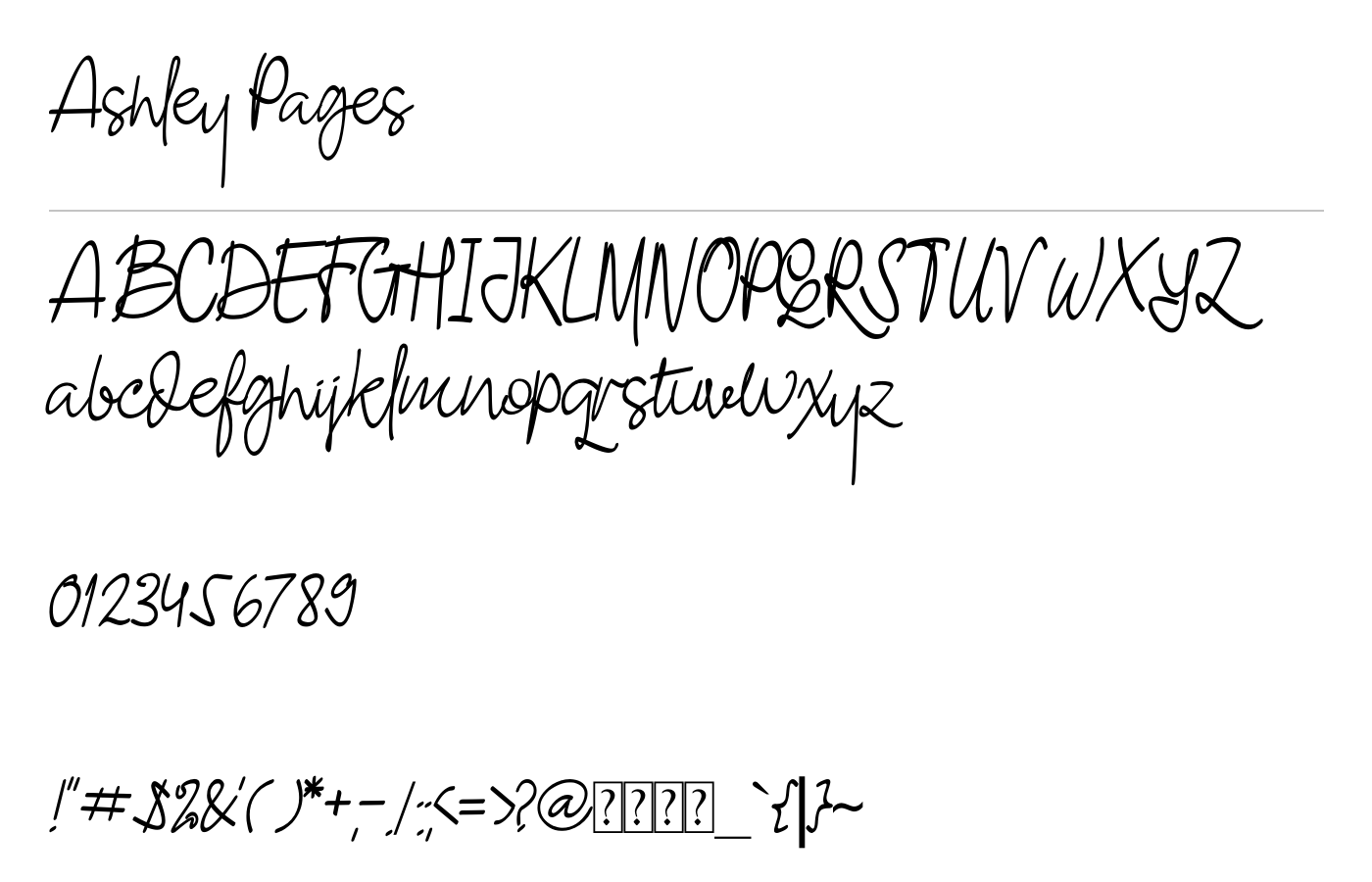
Ashley Pages is a playful and casual handwritten script font with a tall, narrow structure and thin strokes that give it an airy, personal feel. Its lively letterforms and informal style make it ideal for creative projects like invitations, lifestyle branding, and social media graphics where a friendly, approachable tone is desired. This font works best in headlines and short texts that benefit from a handwritten, authentic touch.
Ashley Pages Font
About Ashley Pages Font